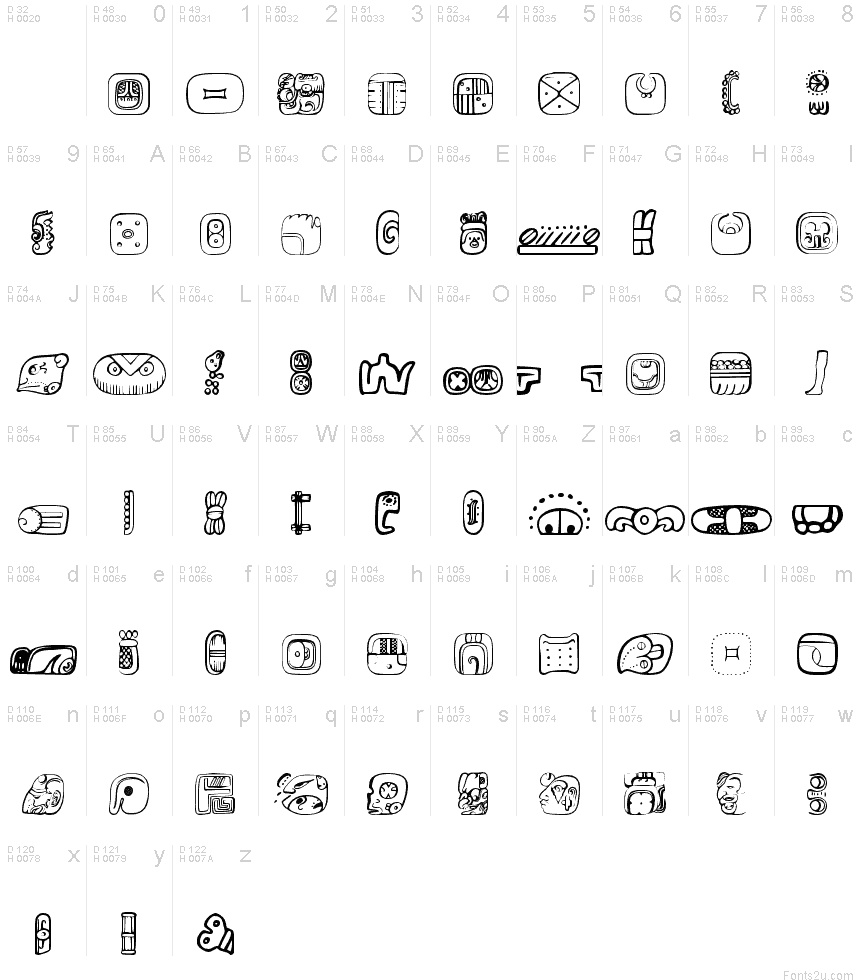
MesoAmerica Dings Four by Paulo W is a free Mesoamerican-inspired display font with compact, carved-looking forms. Its rounded enclosures hold faces, vessels, masks, and profile figures drawn in a steady monoline. Each sign has its own dense silhouette.
Pre-Columbian visual references make it suited to museum graphics and educational publishing. The pictorial forms can also shape historical event posters and themed game artwork. Their repeated faces and artifacts can function as part of an illustration rather than ordinary lettering.